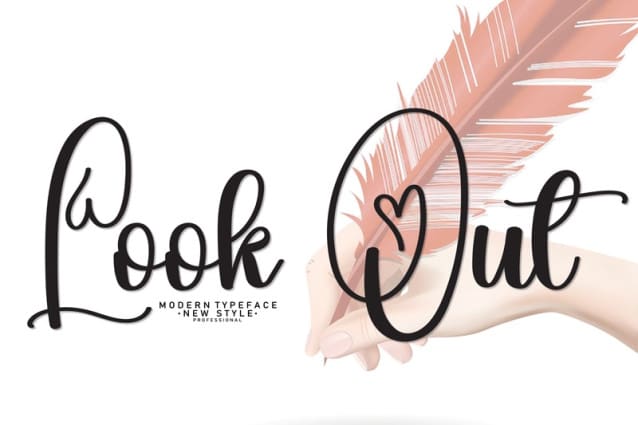
Look Out Font
Look Out Font, perfectly fit for branding, logo, wedding things, greeting cards, fashion, lookbook, marketing promotion, anytime you want to look fancy elegant but still casual.
the latest style letters are perfect for wall displays, wedding invitations, social media post logos,
advertisements, product packaging, product designs, labels, photography, watermarks, invitations, stationery,
and any project that requires taste handwriting.